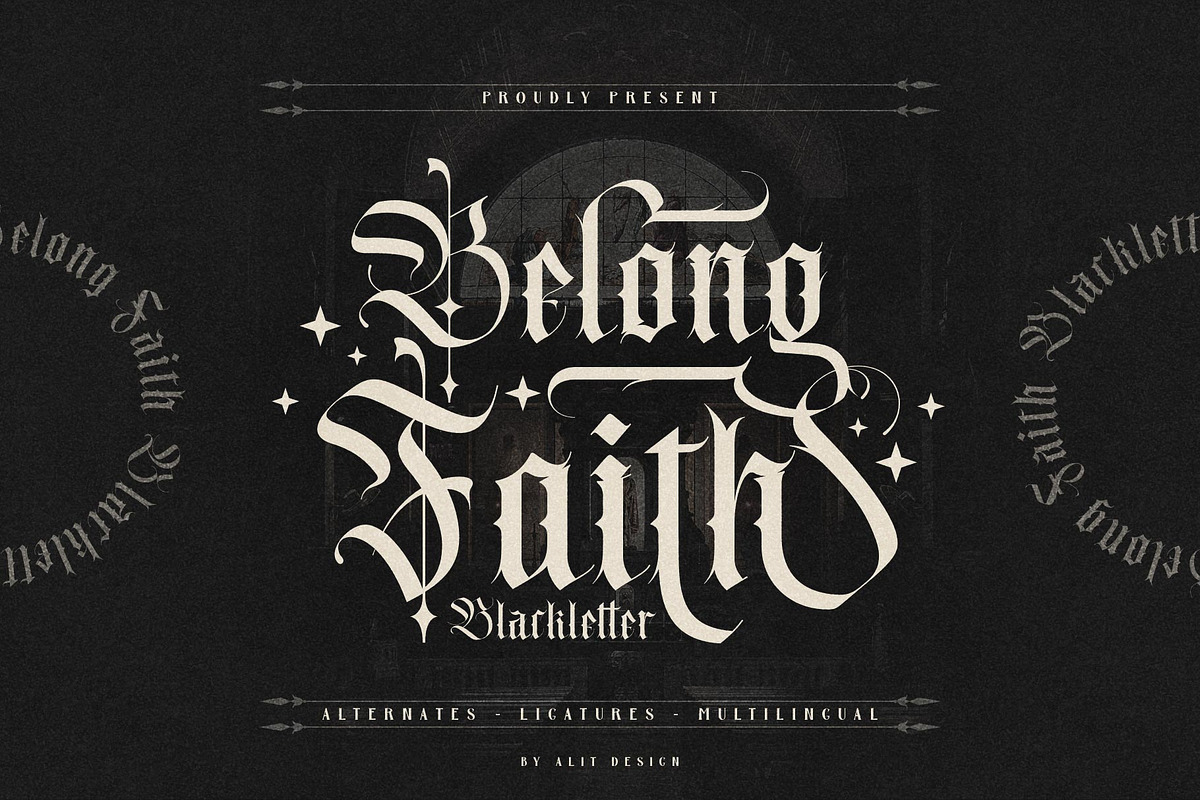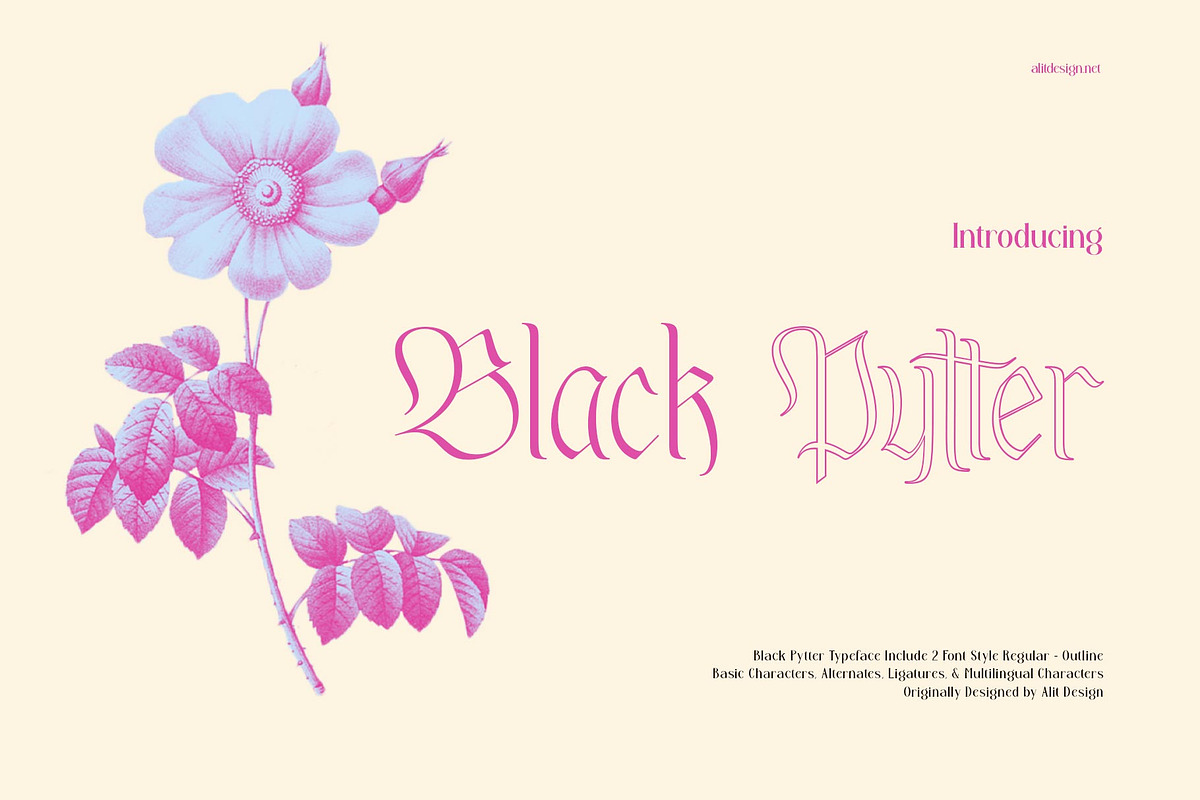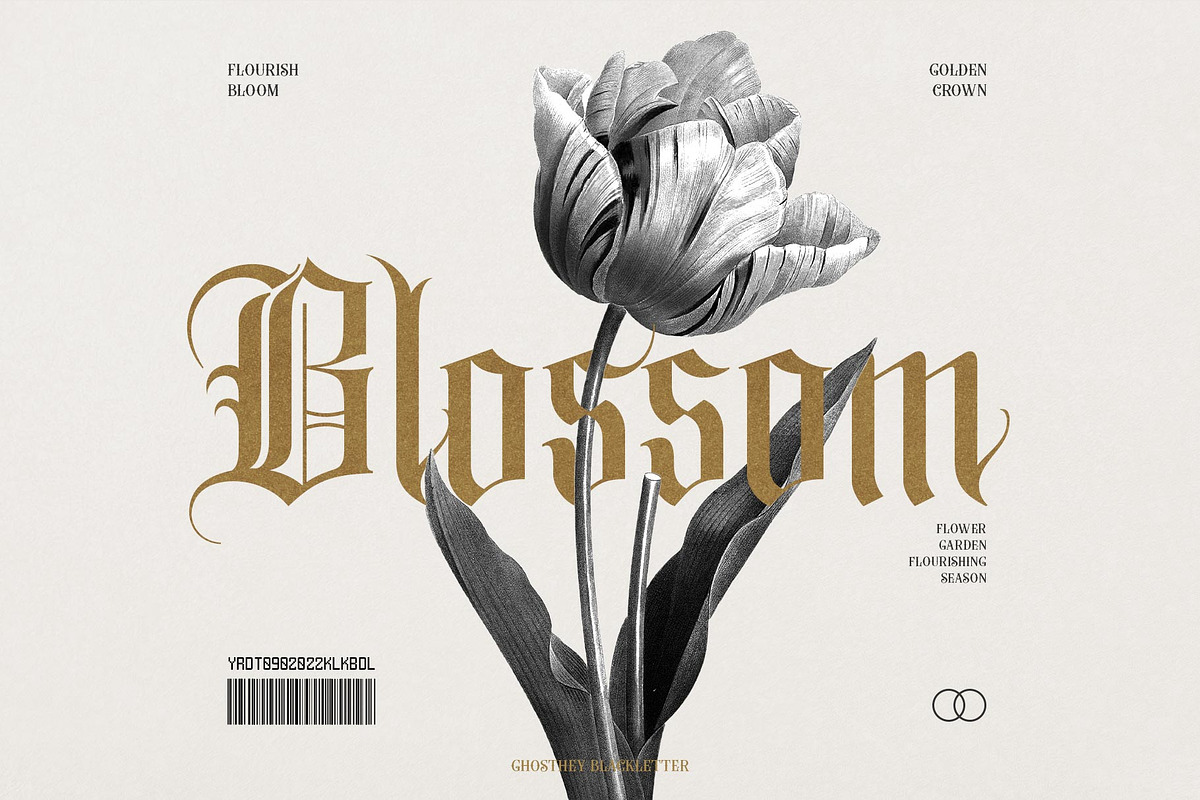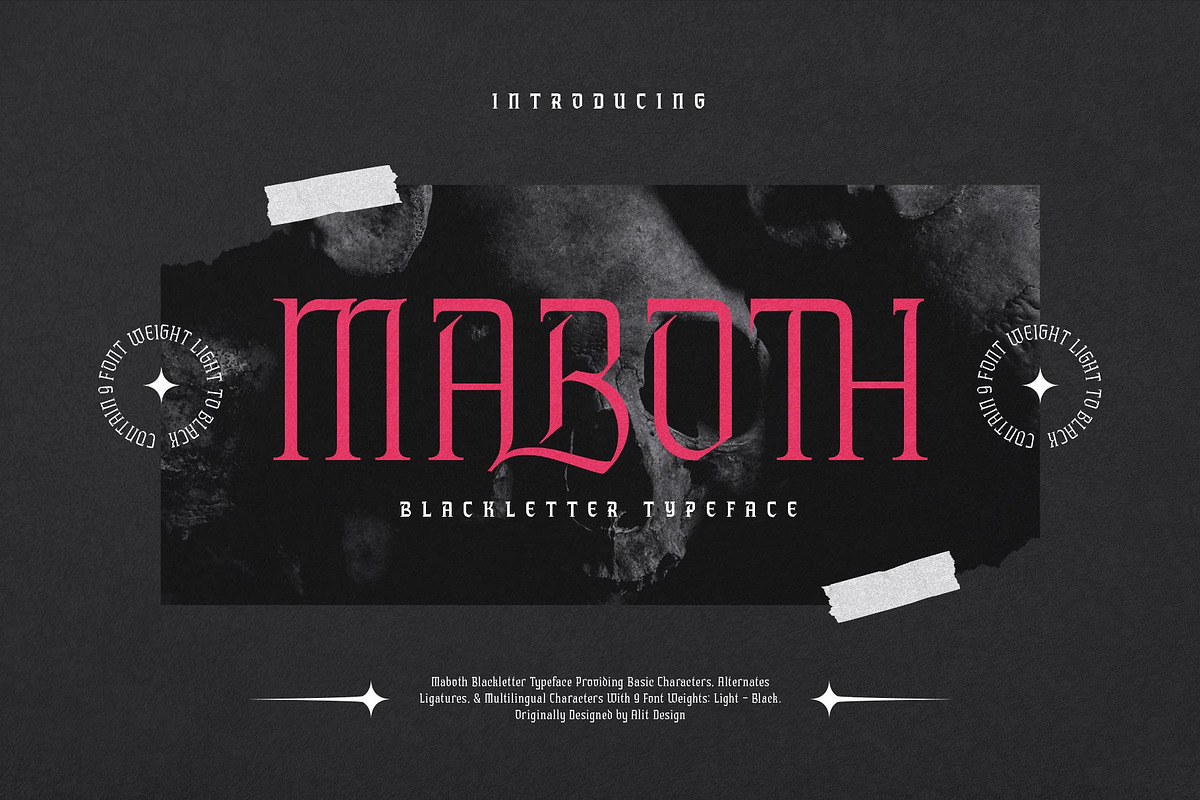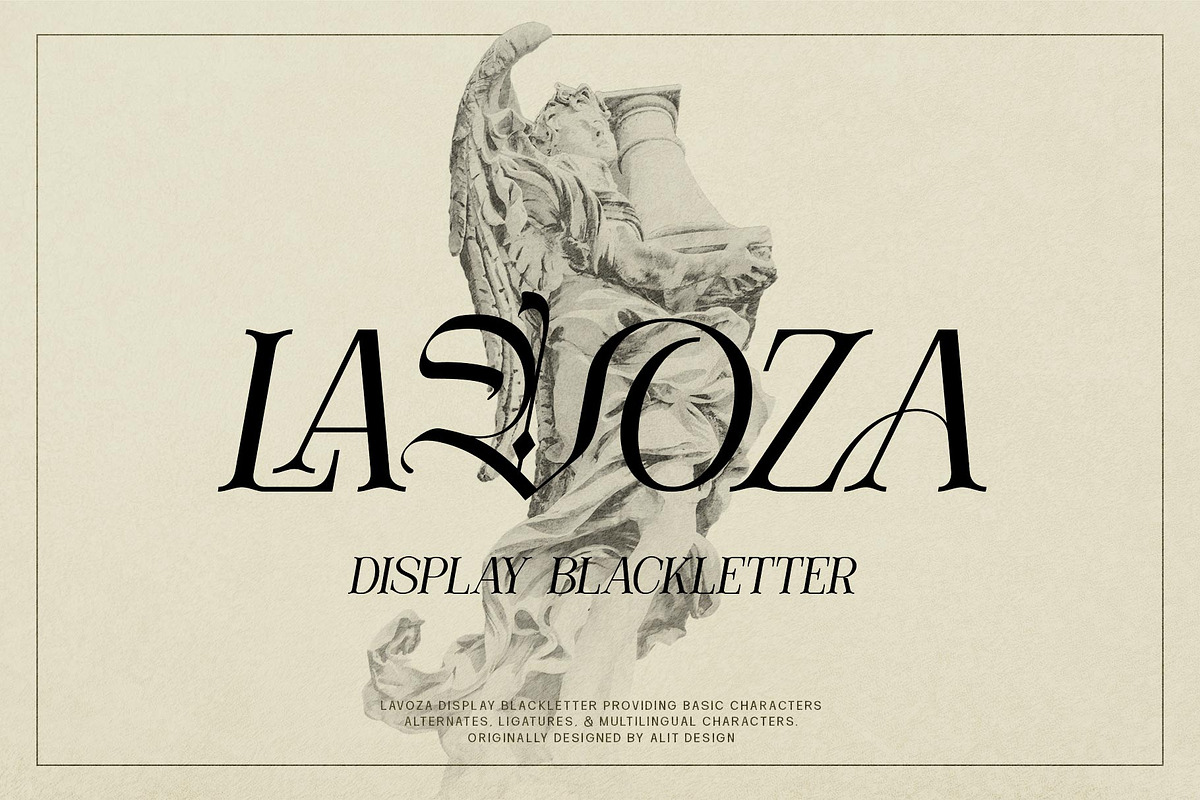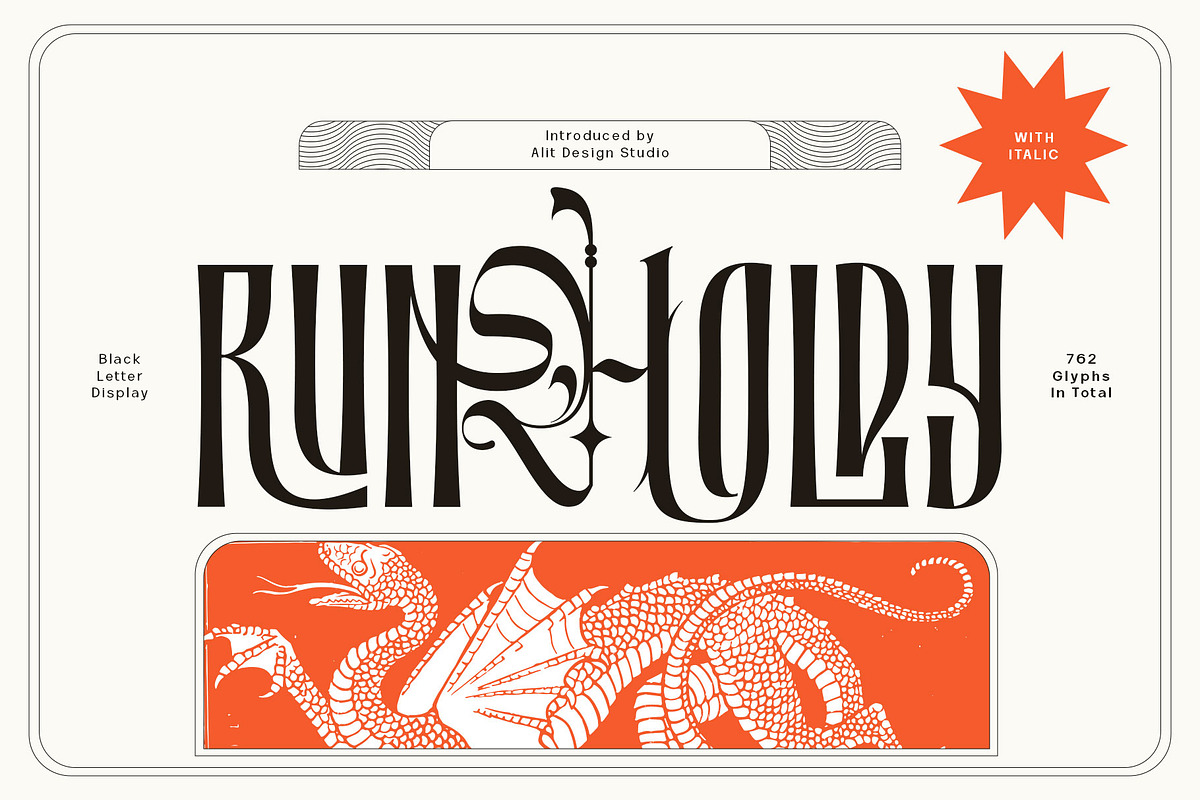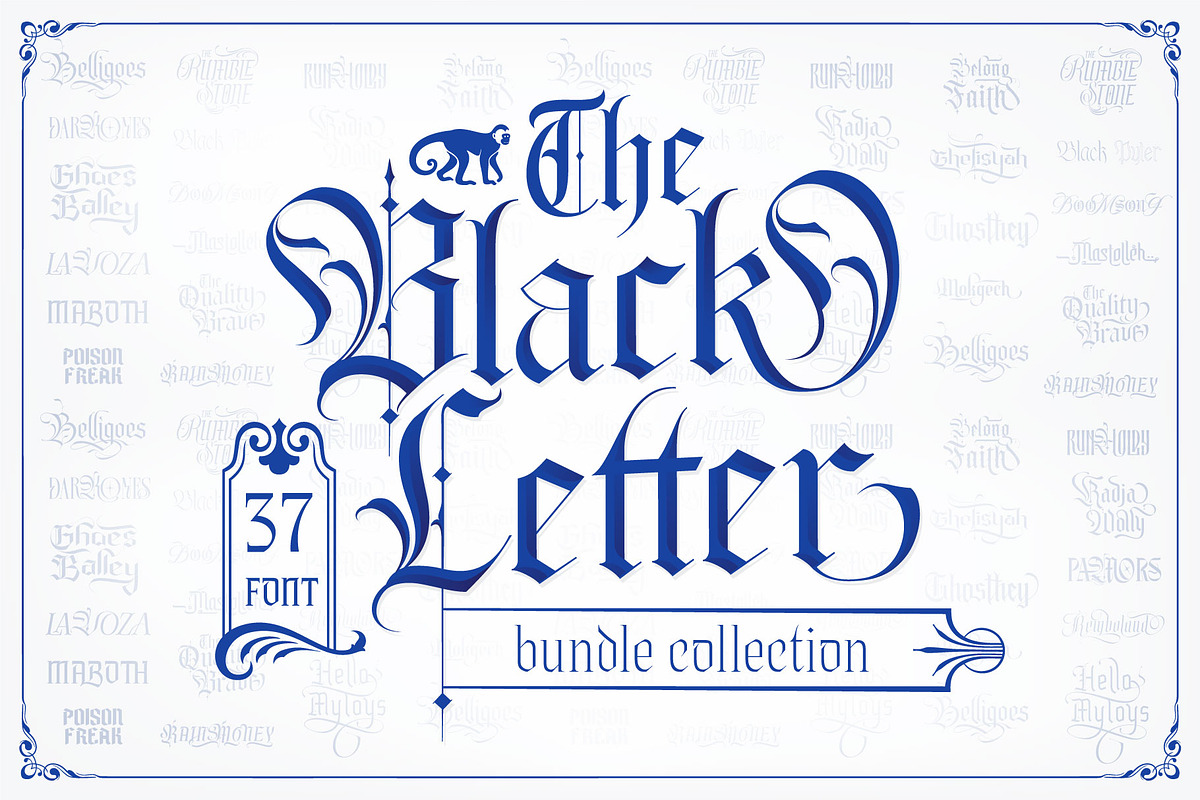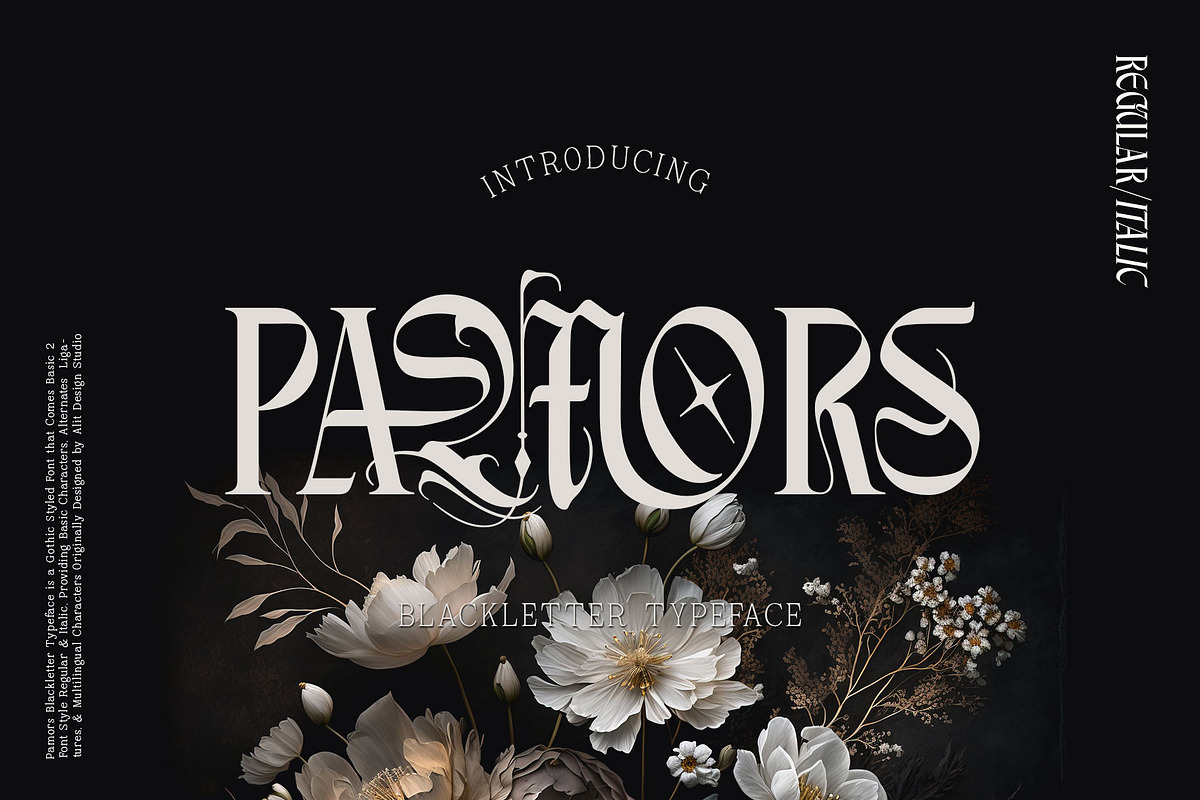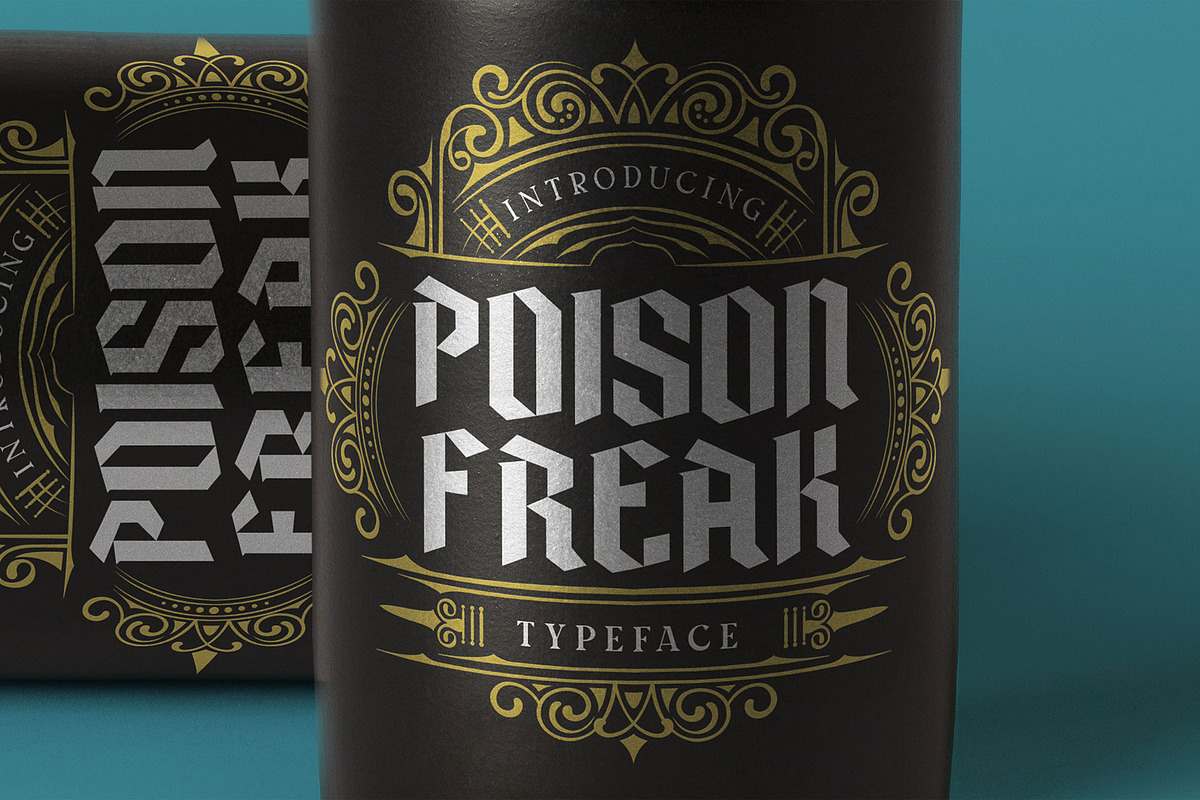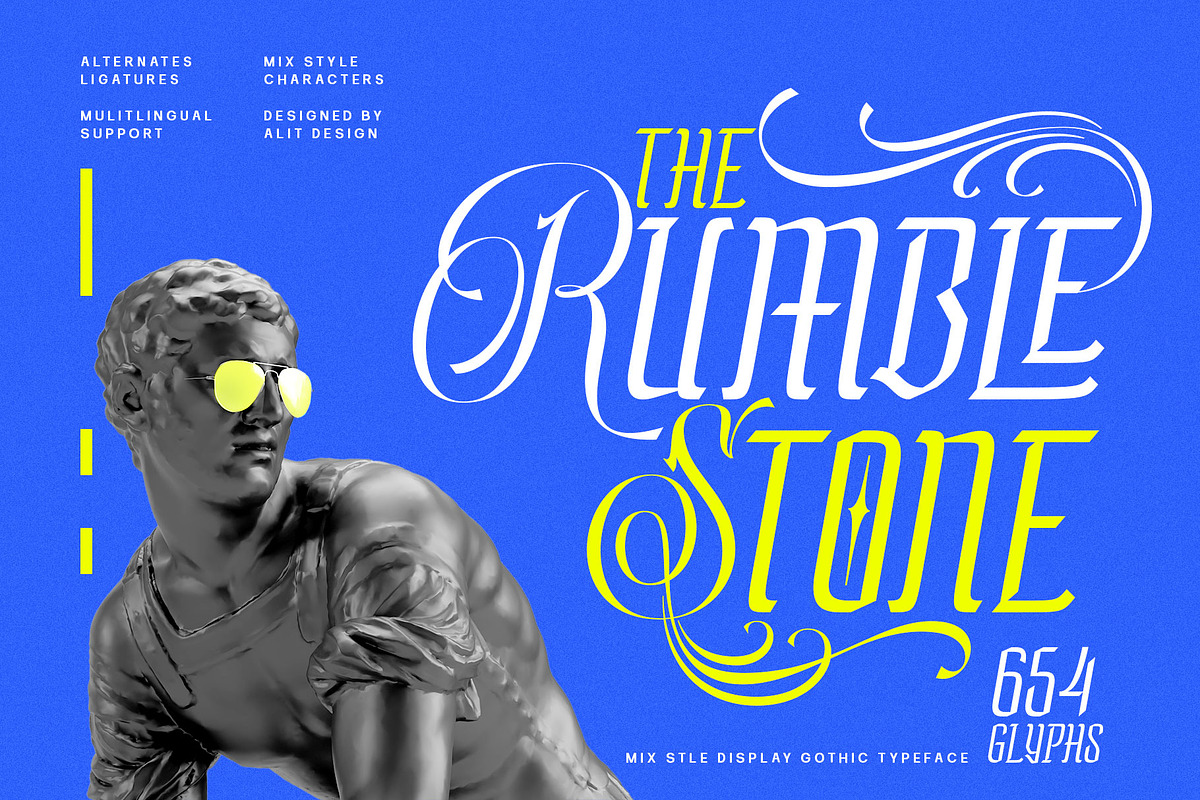
The Blackletter Bundle Alitdesign
Introducing our 21-font bundle collection with the timeless theme of Blackletter! This collection of fonts is perfect for designers and creatives who are looking for a bold and dramatic typeface that exudes medieval charm. Each of the 21 fonts in this bundle has been carefully crafted to capture the essence of Blackletter typography, with intricate details and sharp angles that make a powerful impact.
One of the standout features of this font bundle is its support for multilingual and Unicode PUA characters. This means that the fonts can be used with a variety of languages and special characters, making them ideal for a wide range of design projects. Whether you're working on a print publication, a digital advertisement, or a website, these fonts have you covered.
In addition to their multilingual support, each font in the bundle also comes with a selection of alternative characters and ligatures. These added features give designers even more flexibility and creative freedom to experiment with different styles and layouts. The result is a collection of fonts that is not only visually striking but also incredibly versatile.
Overall, this Blackletter font bundle is a must-have for designers and creatives who want to add a touch of old-world charm to their work. With 21 different fonts to choose from, all with multilingual support and a range of alternative characters and ligatures, the possibilities for creative expression are virtually endless.